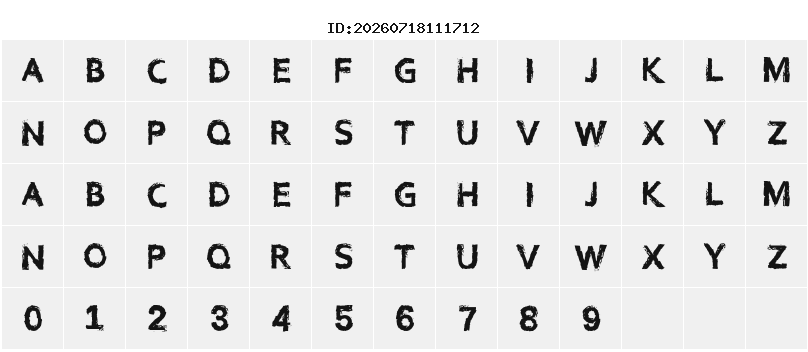
• Font Name: Category 5
• Designer: Chris Vile
• Manufacturer: Fonts by Chris Vile
• Description: Category 5 is a font by Fonts by Chris Vile, designed by Chris Vile in 2014.
About Category 5.ttf
Category 5.ttf is a modern, elegant sans-serif font designed for ultimate readability and visual harmony. Perfect for branding, headlines, web design, and print materials.